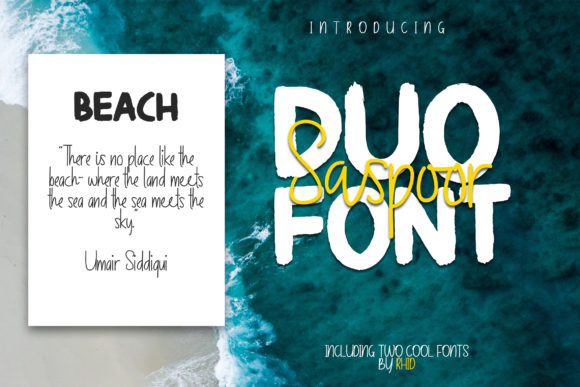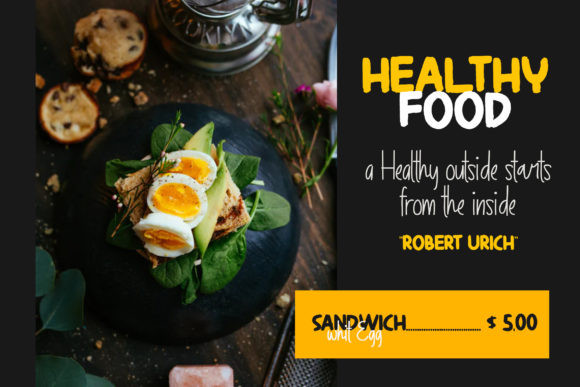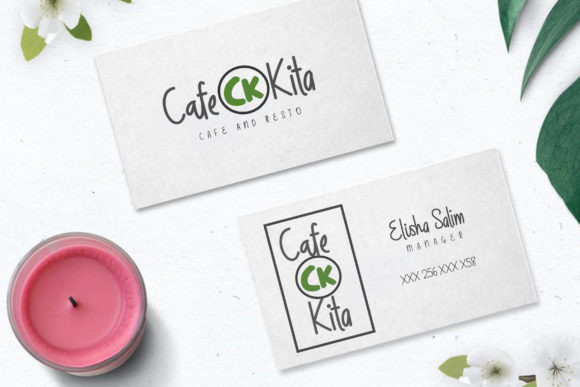
Saspoor Font
Saspoor duo is a match made in heaven. This handwritten font is carefully created with a touch of elegance, use it to bring any DIY project to life!